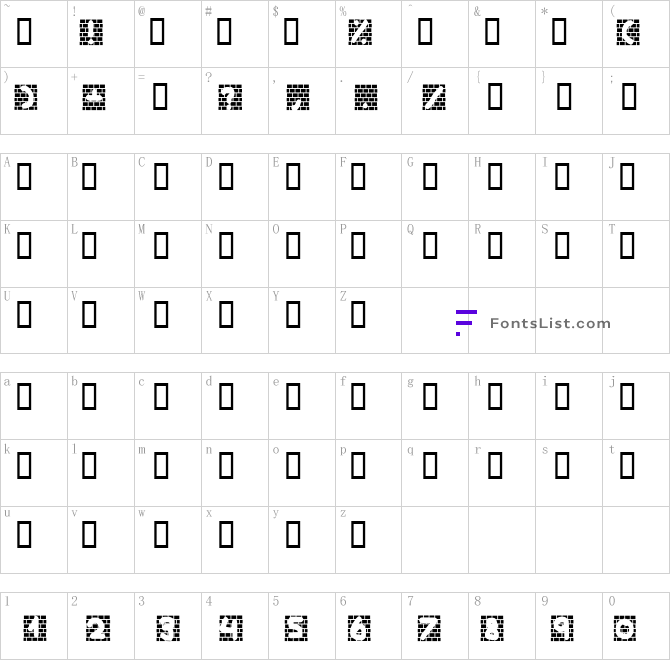
- Font Name:barakgraphity1.3
barakgraphity13.ttf is a very beautiful artistic font, barakgraphity13.ttf is widely used in the design and printing of various books and pictures,barakgraphity13.ttf has a strong visual impact,barakgraphity13.ttf is a commonly used font in newspapers, magazines and books, and is used in posters, e-commerce Poster design, store design, logo design, font design and other fields.barakgraphity13.